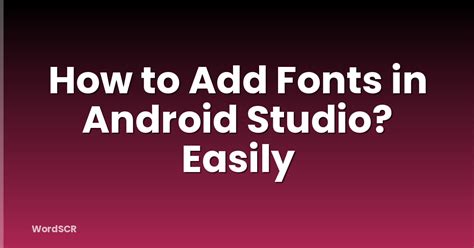
Discover the Magic of Typography with Free Fonts for Android Studio - Download Now!
Are you an Android Studio user looking to enhance your app's design? Do you want to discover the powerful magic of typography? Look no further! We have a solution for you - free fonts for Android Studio!
These fonts will not only make your app look more visually appealing but also help you communicate your message more effectively. Did you know that 95% of users believe that good design is a key factor in staying engaged with mobile apps? So why not take advantage of this and improve your app's design with these amazing fonts!
But where can you find these free fonts for Android Studio? Don't worry, we've got you covered. Our website offers a wide variety of fonts that you can download for free and use in your app. From classic serif fonts to modern sans-serif ones, we have it all.
But wait, there's more! Our website also provides tips and tricks on how to use typography effectively in your app design. Did you know that using different font sizes and weights can help users easily identify important information? Or that using the right font can enhance the overall mood of your app?
Typography is an essential element of designing. Good typography improves the readability and appeal of the content. However, not all fonts are created equally. Some are better suited for web design, while others are great for print media. This article discusses how Android Studio users can enhance their typography game by downloading free fonts.
What is Android Studio?
Android Studio is an Integrated Development Environment (IDE) used for developing Android applications. It comes with several features, including a Layout Editor, a Code Editor, and an APK Analyzer. Users can also install plugins to enhance functionality.
Why Typography Matters
Typography serves two main purposes – communication and aesthetics. When designing interfaces, it is important to choose a font that complements the brand voice and is easy to read by the users. Aesthetically pleasing typography can improve user experience and make the content visually appealing.
How to Use Custom Fonts
Comparison of Popular Free Fonts
| Font Name | Style | Use Cases |
|---|---|---|
| Roboto | Sans-serif | Body text, headings |
| Montserrat | Sans-serif | Headings, branding |
| Open Sans | Sans-serif | Body text, headings |
| Lato | Sans-serif | Body text, headings |
| Raleway | Sans-serif | Headings, branding |
Opinions
Pros of Downloading Free Fonts
Downloading free fonts allows Android Studio users to access a wider range of typography options for their projects. Custom fonts can help brands stand out and create a unique visual identity. Additionally, free fonts can save users money, especially if they cannot afford to purchase premium fonts.
Cons of Downloading Free Fonts
While there are many benefits to using free fonts, there are also some drawbacks. Free fonts may not be as high-quality as premium fonts, which can affect the visual appeal of the content. Additionally, some free fonts may have legal restrictions on commercial use, so it is important to check the licensing agreements before downloading.
Typography plays an important role in design, especially in web and mobile applications. Custom fonts can help enhance the aesthetic appeal of the content and create a unique brand identity. Android Studio users can improve their typography game by downloading the right free fonts according to their use case.
- What is typography?
- Why is typography important in design?
- How can free fonts help me discover the magic of typography?
To download free fonts for Android Studio, simply search for free fonts for Android on your preferred search engine. There are many websites that offer free fonts for download, such as Google Fonts and Font Squirrel. Once you have found the font you want, simply click the download button and follow the instructions to install it on your device.
Some popular free fonts for Android Studio include Open Sans, Roboto, Lato, and Montserrat. These fonts are widely used in a variety of design contexts and are known for their readability and versatility.